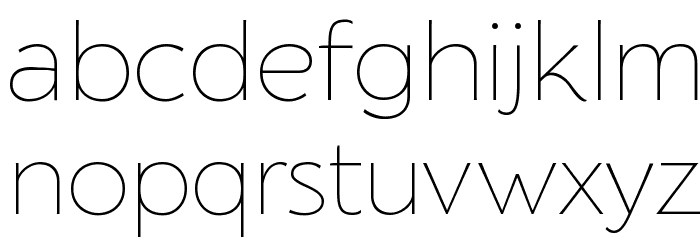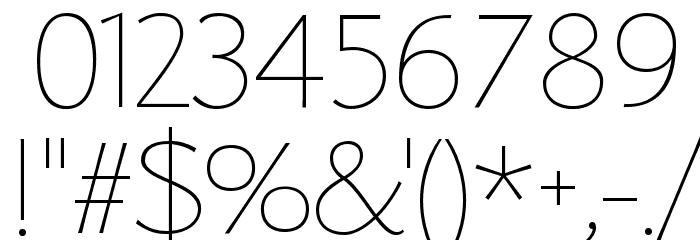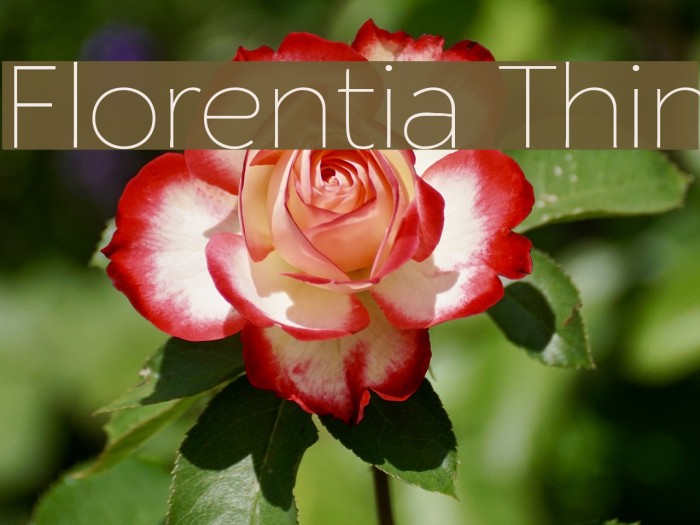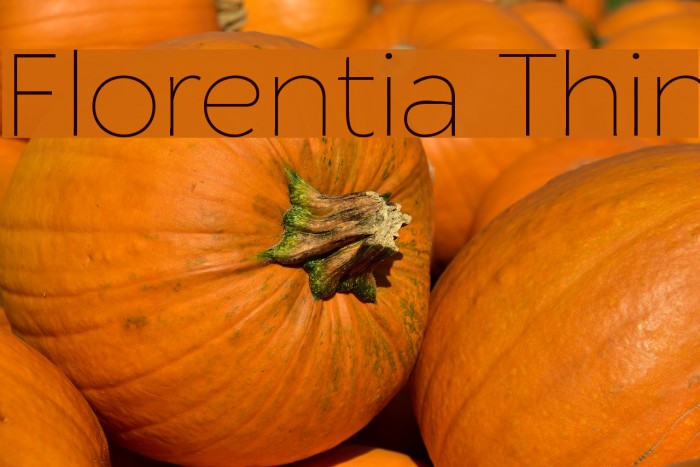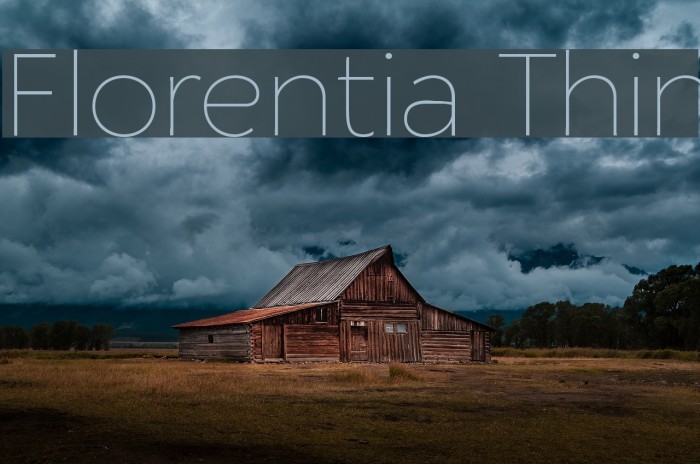
Florentia Thin Font
This font features a sleek and elegant design with thin, clean lines that convey a sense of modernity and sophistication. The characters are well-proportioned, with a consistent stroke width that enhances readability while maintaining a minimalist aesthetic. The uppercase letters are tall and slightly narrow, giving a refined appearance, while the lowercase letters are rounded and harmonious. The numerals are clear and straightforward, complementing the overall style. Special characters are designed with the same attention to detail, ensuring uniformity across all glyphs. This font's simplicity and elegance make it versatile for various design applications.
A sleek, modern font with thin, clean lines and a minimalist aesthetic.
- Proposed Projects: Ideal for branding, editorial design, websites, and minimalist graphic design projects.